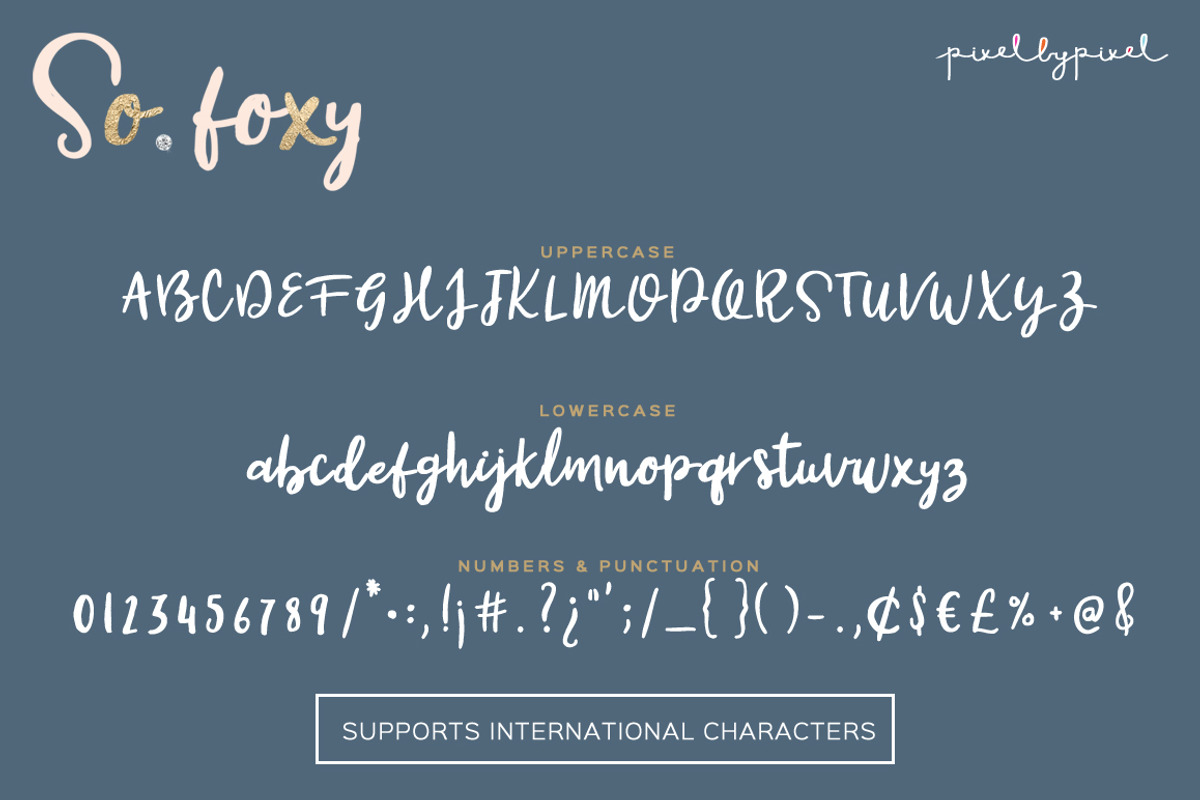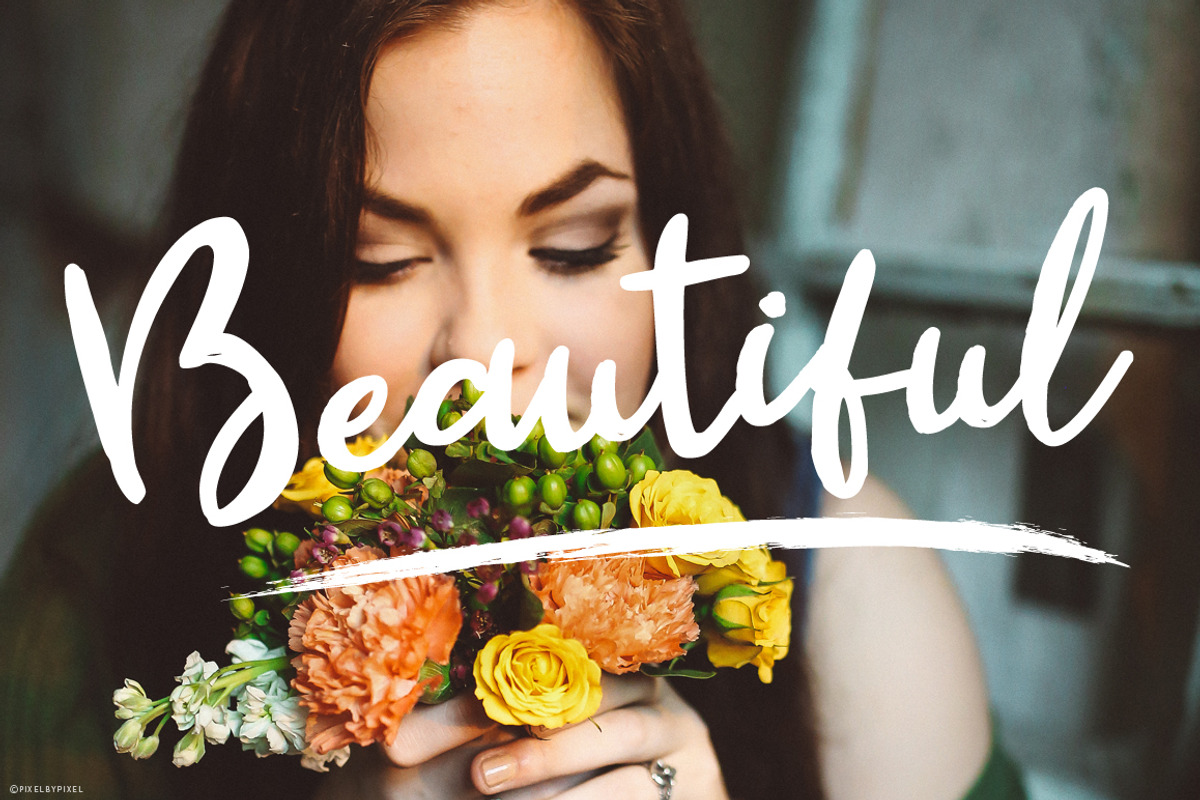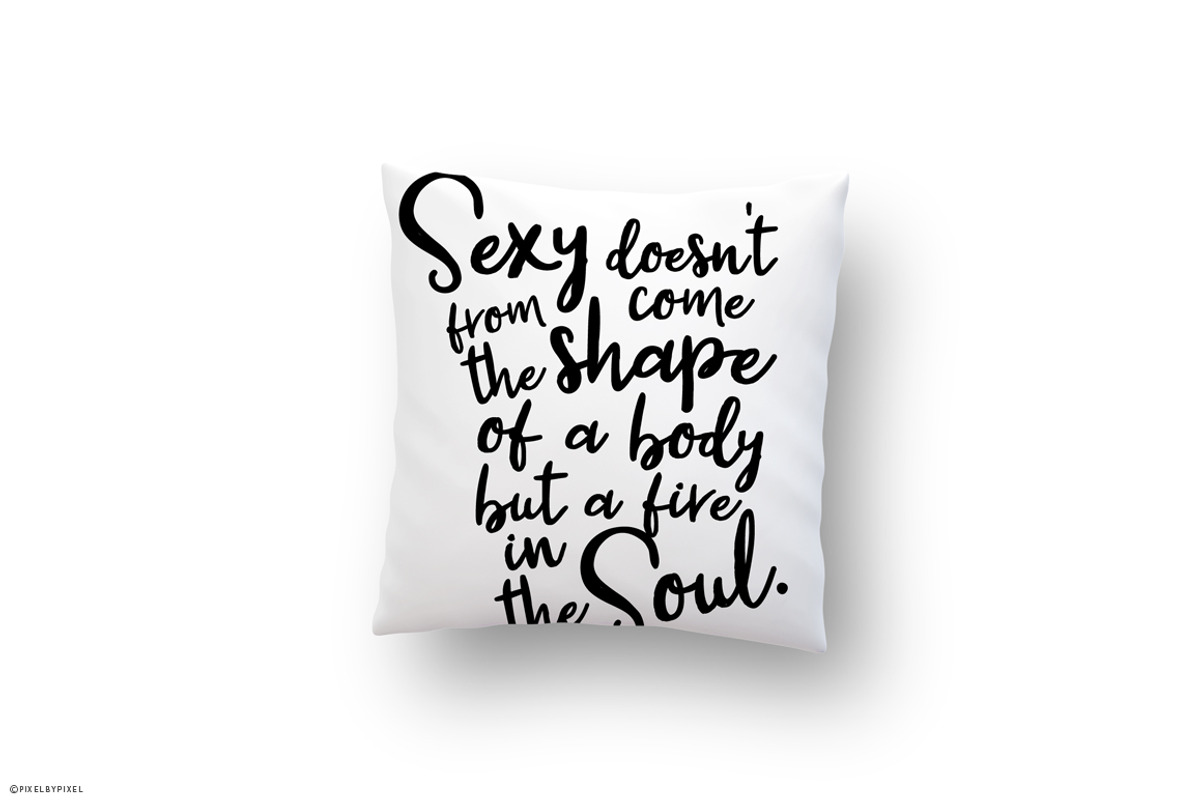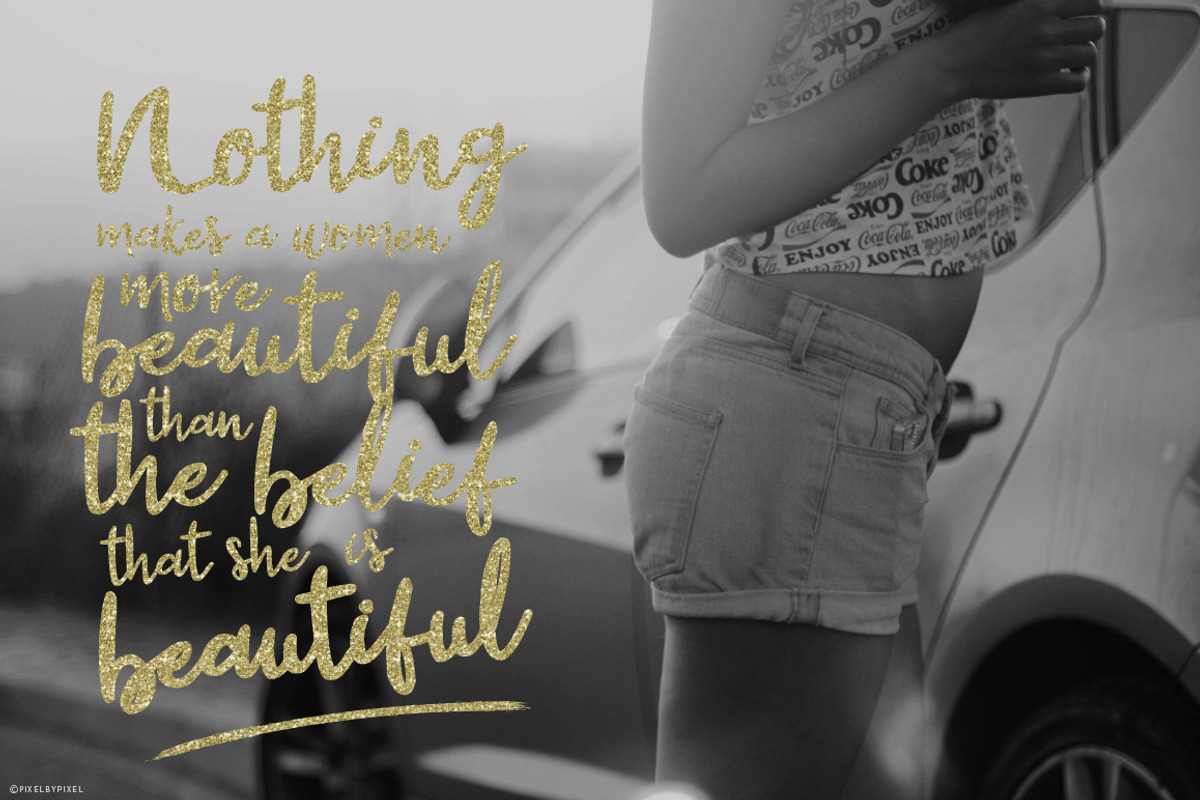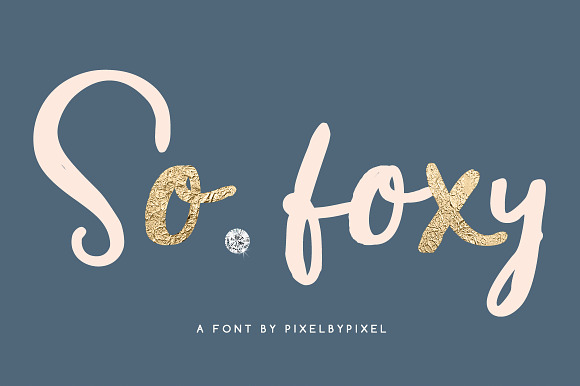
So Foxy Script Font
So foxy is a feminine hand drawn font great for quotes or girly designs!
Uppercase and lowercase characters
Numerals and punctuation